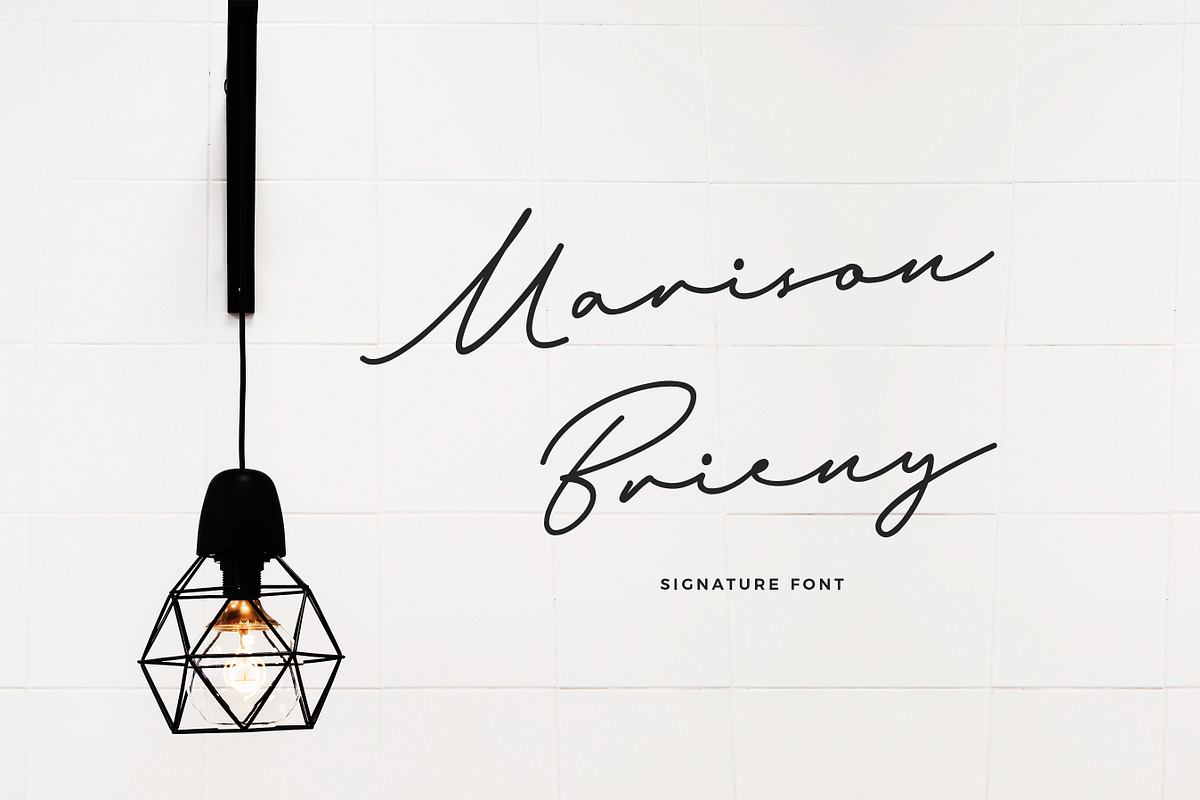
Marison Brieny is a modern signature typeface designed to add an elegant and personal touch to various projects. This handwritten script font is particularly well-suited for applications such as wedding invitations, event materials, logos, branding, and more.
Design Style: Marison Brieny features a feminine handwritten script style, offering a delicate and sophisticated appearance.
Character Set: The font includes both uppercase and lowercase letters, allowing for versatile design applications.
Incorporating Marison Brieny into your design projects can add a touch of elegance and personalization, enhancing the overall aesthetic appeal.